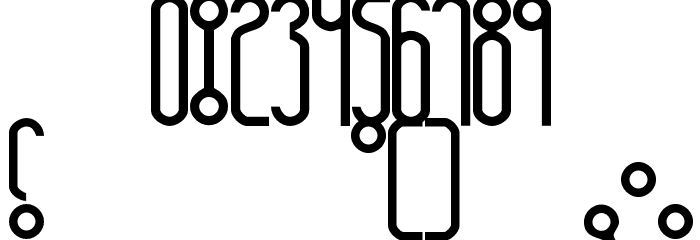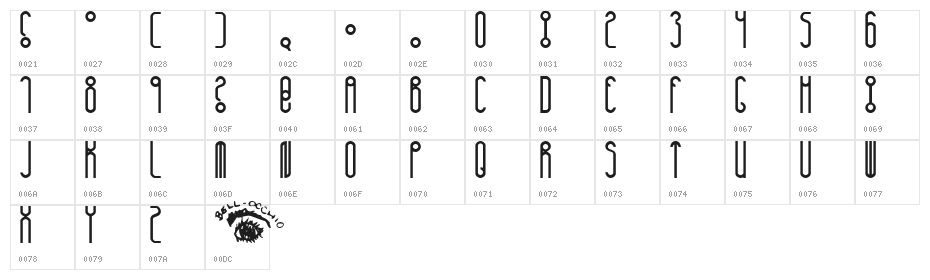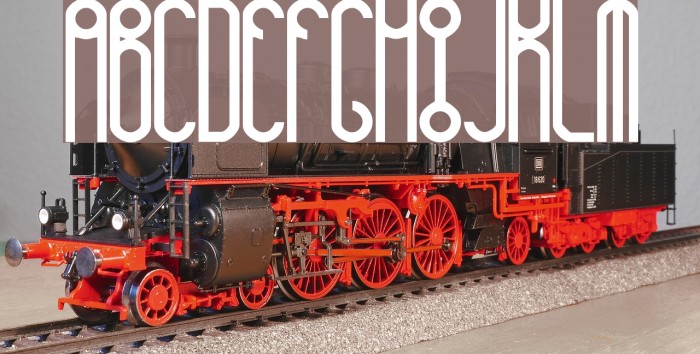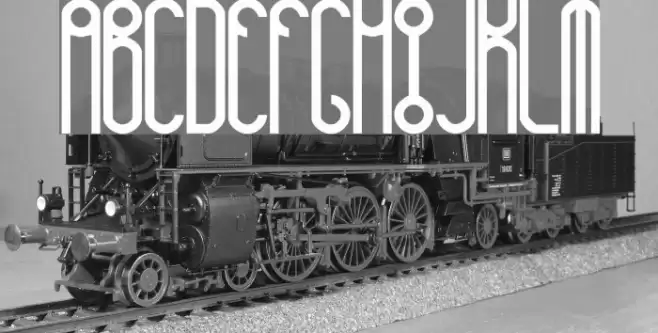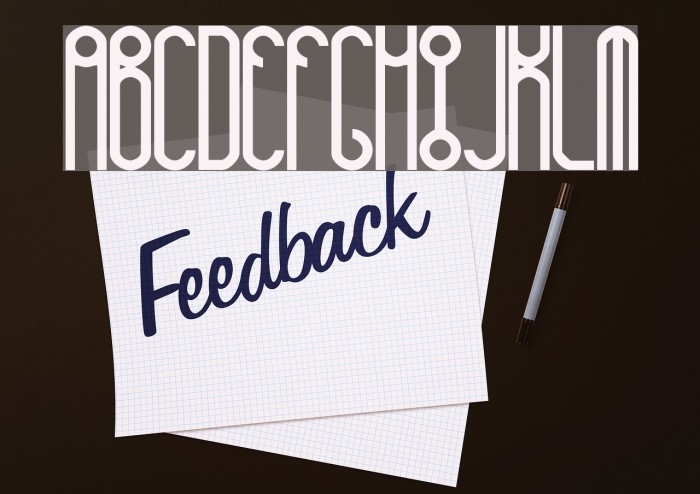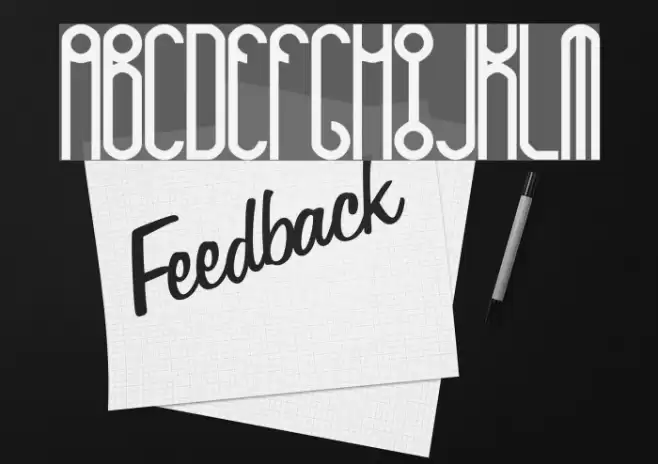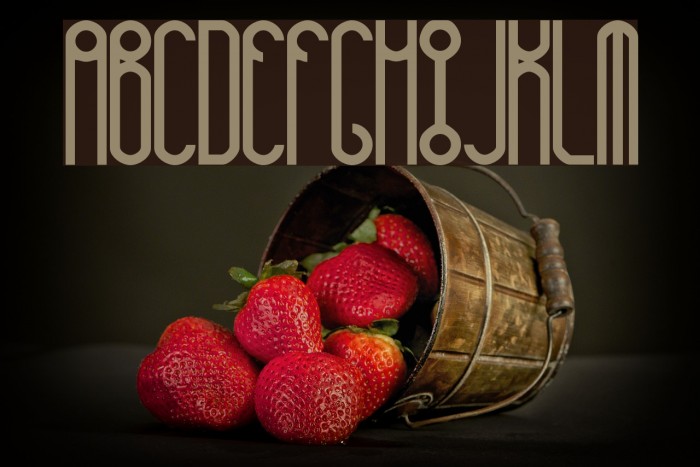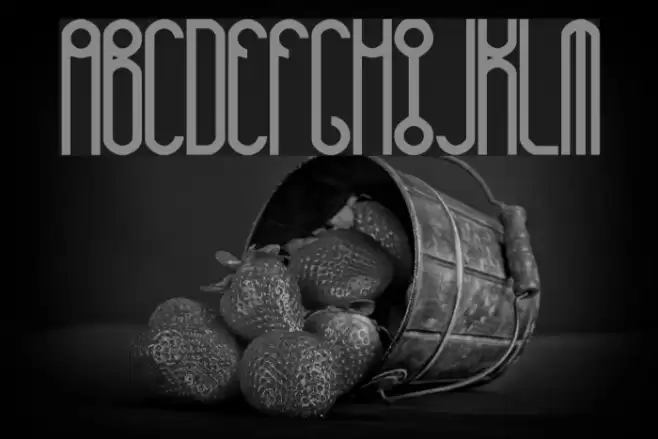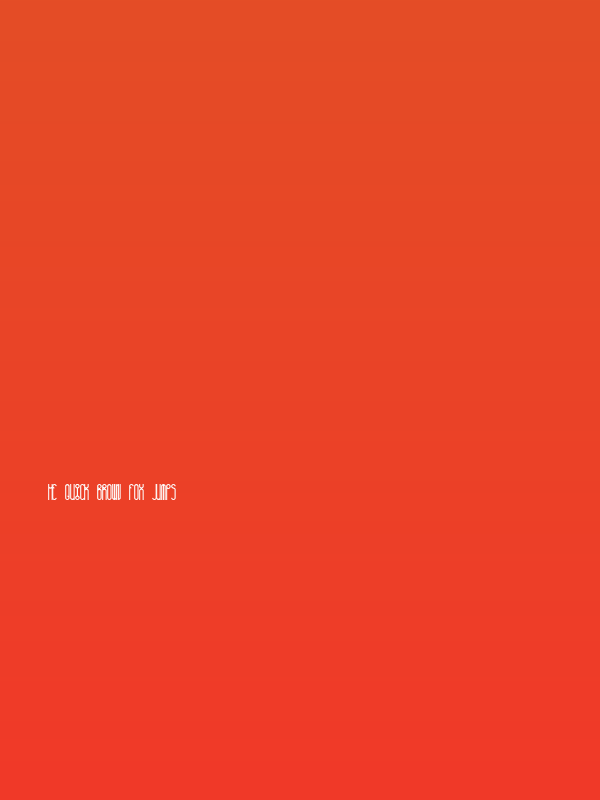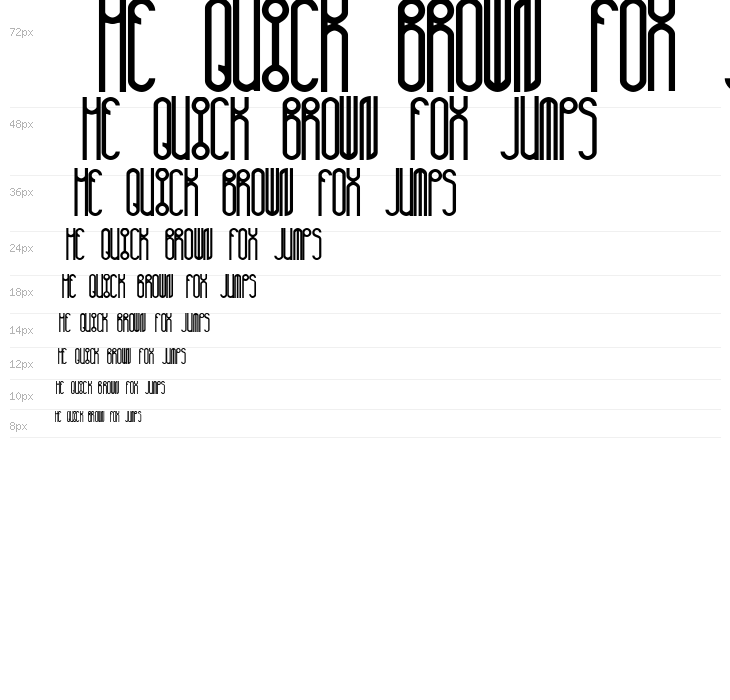
Huxley Font
Huxley Description
This font features a unique and artistic design with a futuristic and geometric style. The characters are constructed with a combination of straight lines and circular elements, creating a visually striking appearance. The uppercase letters are tall and narrow, while the lowercase letters maintain a consistent style, enhancing the overall cohesiveness. Numbers and special characters follow the same design principles, ensuring uniformity across all elements. The font's distinctiveness makes it suitable for creative projects that require a modern and avant-garde touch.
| Use Case | Logos, Headlines |
| Proposed Projects | Ideal for branding, posters, album covers, and digital art projects. |